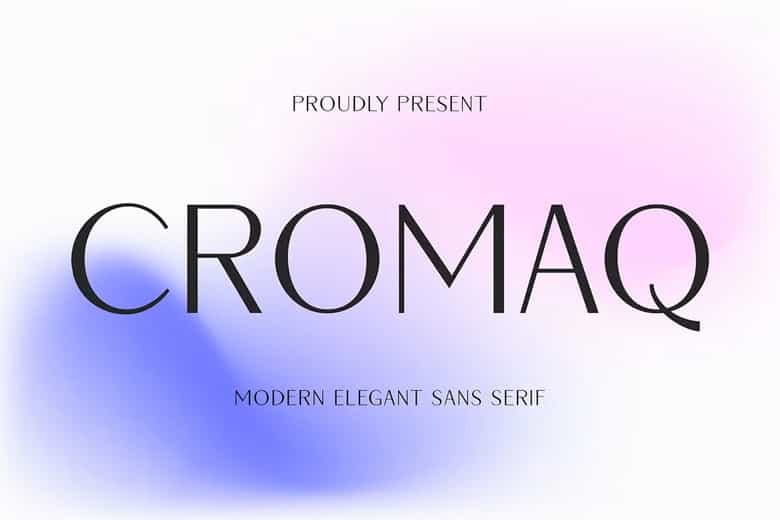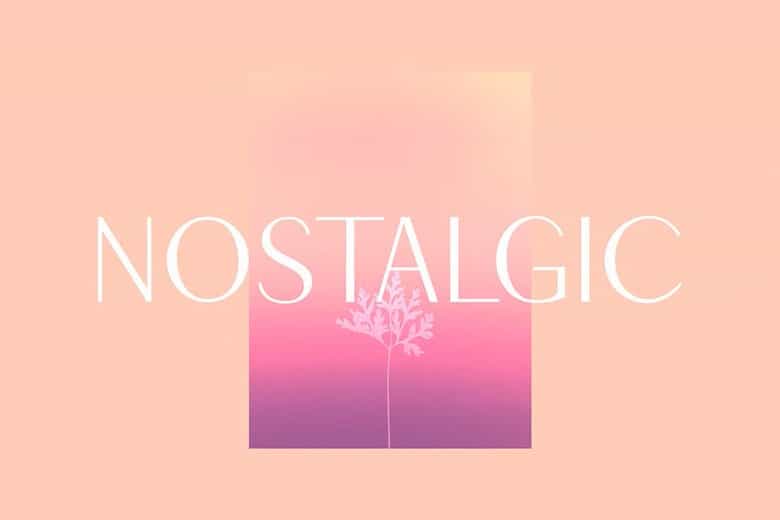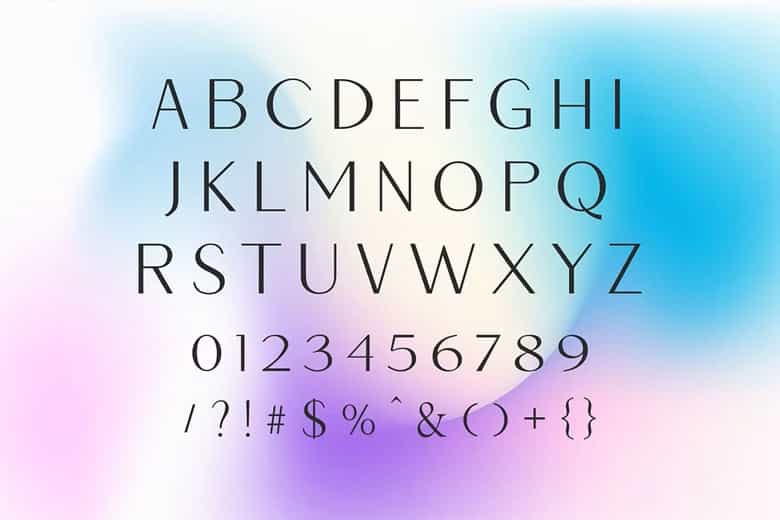
Cromaq is an elegant and modern sans serif typeface with the sophisticated bent of the personality. It uses thin line expressions, fancy curves and simplified forms to become the ideal typographical style when it comes to fashion, beauty and high-quality branding. It is elegant and advanced in style and it has that sophisticated modern touch.